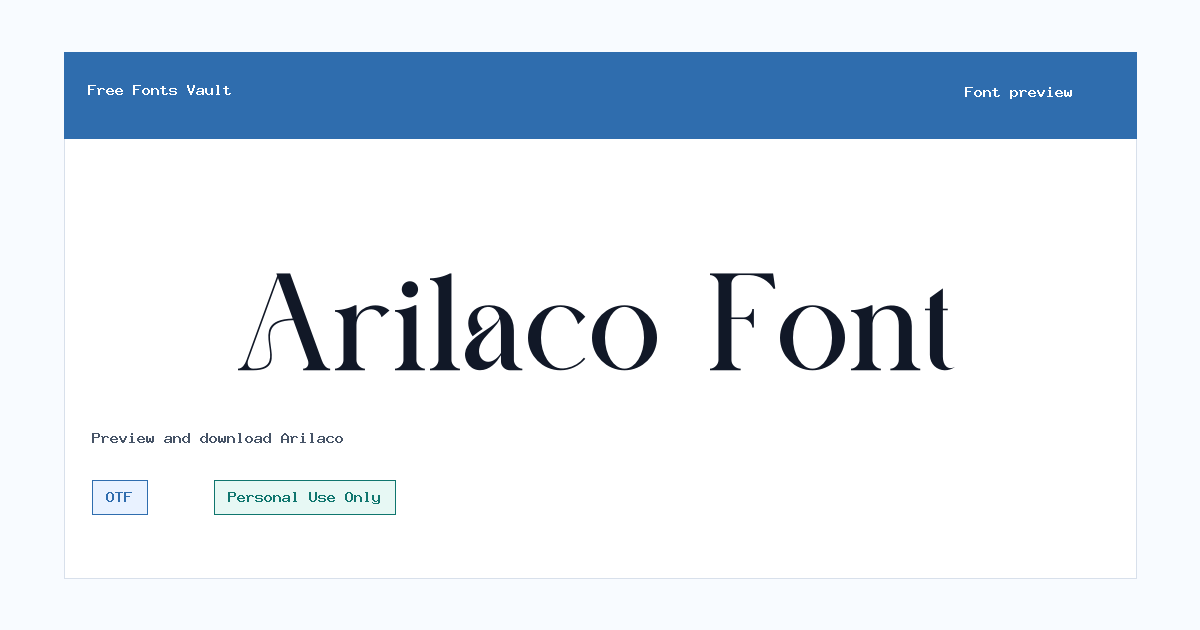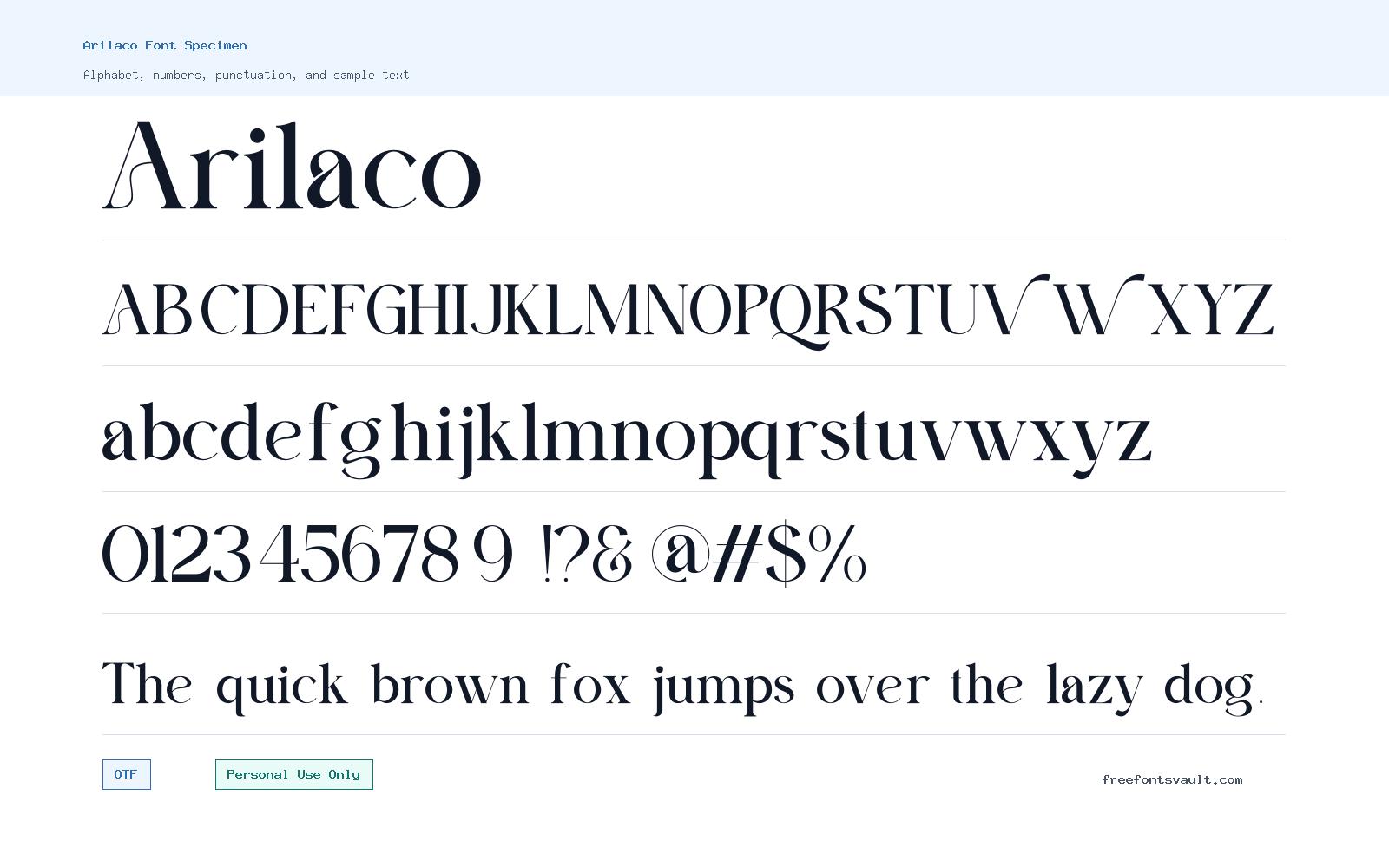
Arilaco
- Designer ErmediaStudio
Arilaco is a serif display font from ErmediaStudio with a polished, stylish look made for short, visual text. It works best when the words need to feel refined without becoming hard to read.
About Arilaco Font
Arilaco is presented as a modern serif typeface for branding and display design. Its strongest use is not long paragraphs, but names, headings, title cards, invitations, business cards, book-cover text, and other places where a few words need a more dressed-up tone. The regular style has the kind of serif character that suits logo drafts, fashion-style layouts, editorial mockups, boutique packaging concepts, and social graphics where the type is part of the visual identity rather than only a reading tool.
Use the preview box to test the exact words you plan to use, especially if the design depends on letter combinations. Sources for the font mention ligatures, uppercase and lowercase letters, numbers, and punctuation, so try brand names, initials, dates, ampersands, and accented words before downloading. Display serifs can look excellent at large sizes but may lose clarity when they are squeezed into small captions or dense body copy. For a clean layout, pair Arilaco with a plain sans serif for supporting text, product details, menus, web UI labels, or paragraph copy. Let Arilaco handle the title or logo-style moment, then keep the rest of the typography simple.
- Serif styling with reported ligature support, uppercase and lowercase letters, numbers, and punctuation.
- Logo concepts, brand-name mockups, boutique packaging, and visual identity drafts.
- Posters, invitations, movie-title style graphics, business cards, book covers, and social media artwork.
Arilaco is credited to ErmediaStudio. No separate foundry name is listed for this font page.
For logo work, test the full name in uppercase, lowercase, and title case before choosing a layout. Check spacing around narrow letters, punctuation, and paired letters, because decorative serif details can change the rhythm of a word. For posters and web mockups, use Arilaco at larger sizes with generous spacing and contrast. Avoid relying on it for long article text or small mobile captions; a neutral sans serif or readable text serif will usually perform better there.
Who designed Arilaco?
Arilaco is credited to ErmediaStudio.
What kind of projects does Arilaco suit?
It suits short display settings such as logos, brand names, invitations, posters, title graphics, business cards, and book-cover text.
What should I pair with Arilaco?
Pair it with a simple sans serif or a quiet text serif. Let Arilaco carry the headline, logo, or title, and use the companion font for body copy and practical information.